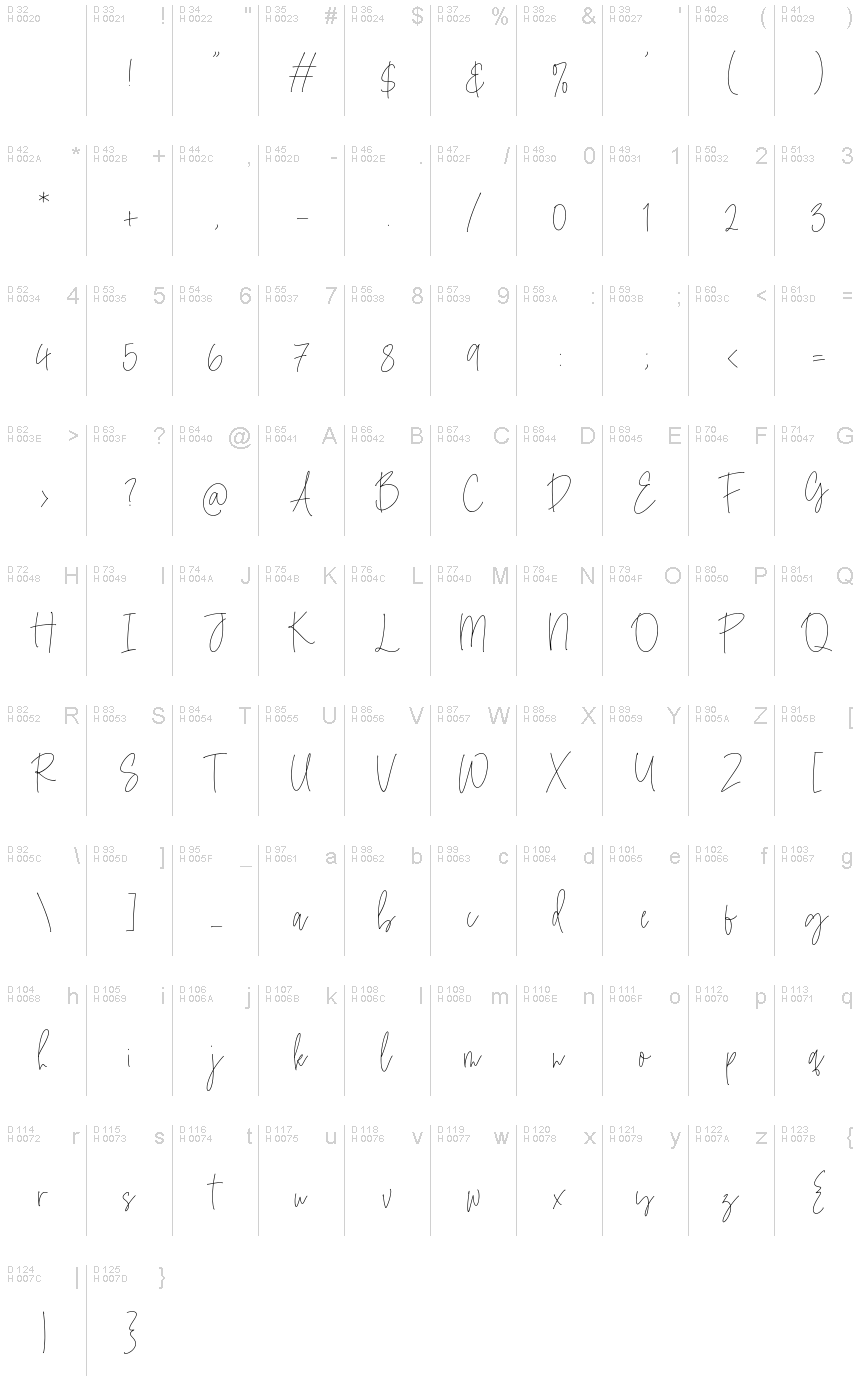
Avocado Candy
Avocado Candy font is made by Balpirick Studio. It's a handwritten signature font with elegant, flowing characters and thin strokes that create a low-contrast design. Its handwriting style comes across as both casual and playful, making it feel modern but also informal at the same time You can get this font free for personal use.
This makes Avocado Candy perfect for designing your own online content like blogs or videos; using it on social media platforms such as Instagram stories; creating branding elements like logos; working with packaging designs; setting up invitations, cards or scrapbooks with family photos!